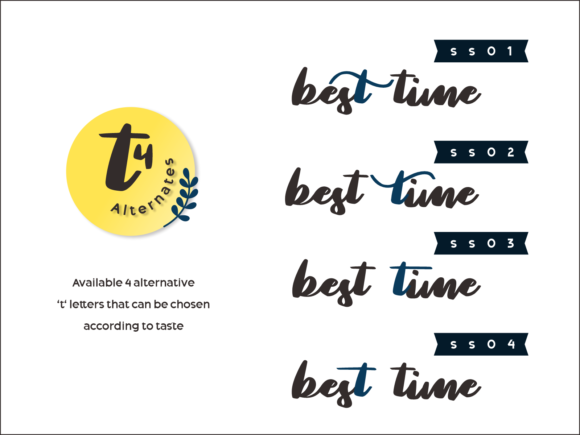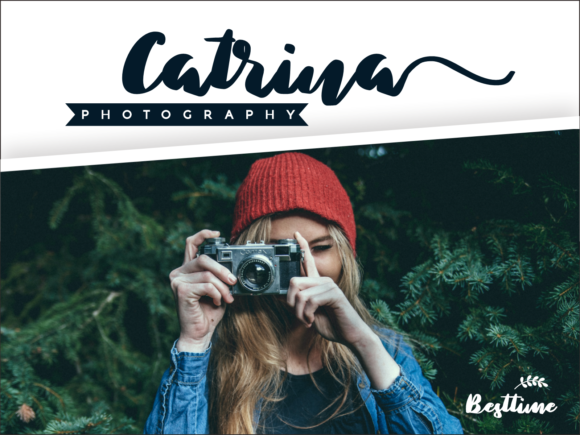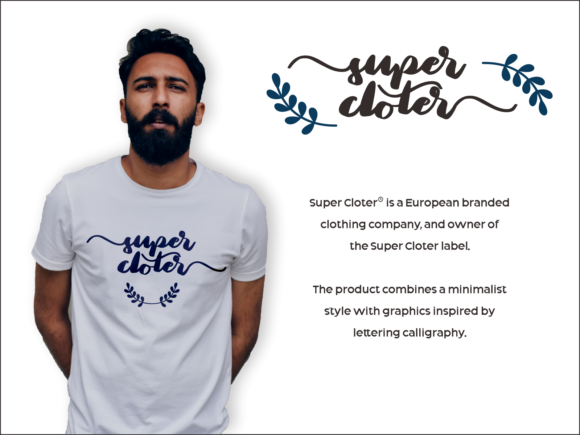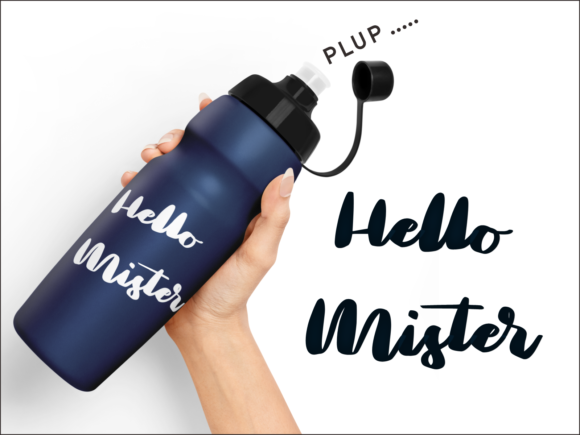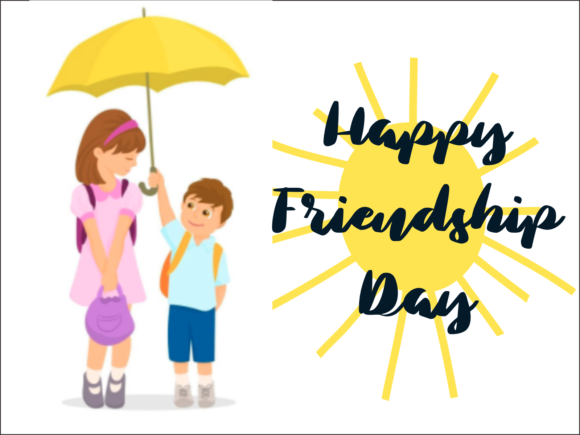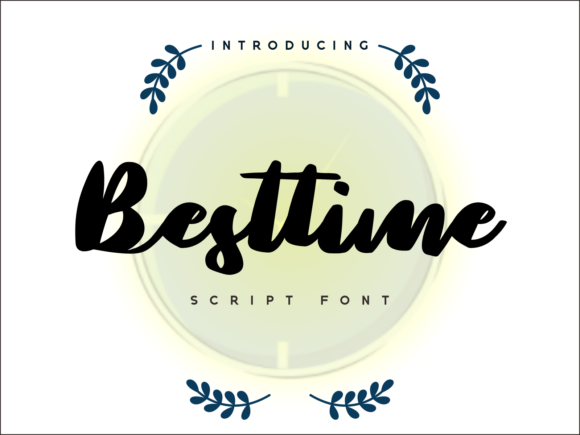
Introducing Best Time Font: Elevate Your Designs with a Touch of Whimsy
Are you on the hunt for a font that adds a dash of personality to your creative projects? Look no further than Best Time, a stylish script font that’s sure to captivate your audience. With its charming, playful characters that seem to dance along the baseline, Best Time is the perfect addition to any design that needs a little extra flair.
The Charm of Best Time Font
Best Time Font is a chic script font that boasts a unique, hand-crafted feel. Its characters are designed to be both elegant and playful, making it an excellent choice for a wide range of creative projects. Whether you’re working on a logo, a poster, or a social media graphic, Best Time Font is sure to add a touch of whimsy and personality to your design.
One of the standout features of Best Time Font is its charming, dancing baseline. This distinctive design element gives the font a sense of movement and energy, making it perfect for designs that need to grab attention. Whether you’re looking to create a bold statement or simply add some visual interest to your design, Best Time Font is an excellent choice.
Why Choose Best Time Font?
So, what sets Best Time Font apart from other fonts on the market? Here are just a few reasons why designers and crafters are falling in love with this stylish script font:
- Unique and eye-catching: Best Time Font features a distinctive, hand-crafted design that’s sure to turn heads. Its charming characters and dancing baseline make it a standout in any design.
- Versatile: Whether you’re working on a logo, a poster, or a social media graphic, Best Time Font is a versatile choice that can adapt to any design style.
- Elegant and playful: Best Time Font strikes the perfect balance between elegance and playfulness, making it an excellent choice for designs that need to convey a sense of sophistication and whimsy.
- Easy to read: Despite its playful design, Best Time Font is surprisingly easy to read, making it a great choice for designs that need to communicate a message.
How to Use Best Time Font in Your Designs
Ready to add Best Time Font to your design toolkit? Here are a few ideas to get you started:
- Logos: Use Best Time Font to create a unique and memorable logo that showcases your brand’s personality.
- Posters: Add a touch of whimsy to your posters with Best Time Font, perfect for promoting events, products, or services.
- Social media graphics: Use Best Time Font to create eye-catching social media graphics that stand out in crowded feeds.
- Invitations: Add a touch of elegance and playfulness to your invitations with Best Time Font, perfect for weddings, parties, and other special occasions.
Tips for Pairing Best Time Font with Other Fonts
Want to create a truly stunning design with Best Time Font? Here are a few tips for pairing it with other fonts:
- Pair with a sans-serif font: Pair Best Time Font with a clean sans-serif font, such as Arial or Helvetica, to create a striking contrast.
- Use a bold font: Pair Best Time Font with a bold font, such as a bold serif or script font, to create a dramatic and eye-catching design.
- Experiment with font sizes: Don’t be afraid to experiment with different font sizes to create visual interest and hierarchy in your design.
Best Time Font is a stylish script font that’s sure to add a touch of whimsy and personality to your creative projects. With its charming, playful characters and dancing baseline, it’s the perfect choice for designers and crafters looking to create eye-catching designs that stand out. Whether you’re working on a logo, poster, or social media graphic, Best Time Font is an excellent addition to your design toolkit.